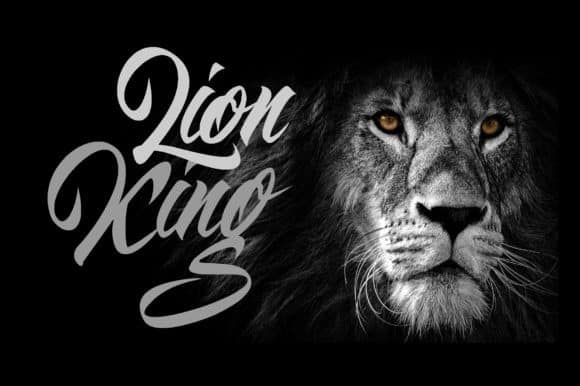
Magnitudo Script Font is a modern handwritten typeface written in soft movements using a special pen. Made from font designer named ZetDesign. Magnitudo results out of a stunning pairing of a brush pen and pencil that makes it look incredibly endearing and authentic. Use this gorgeous and unique handwritten font to bring any DIY project to life!